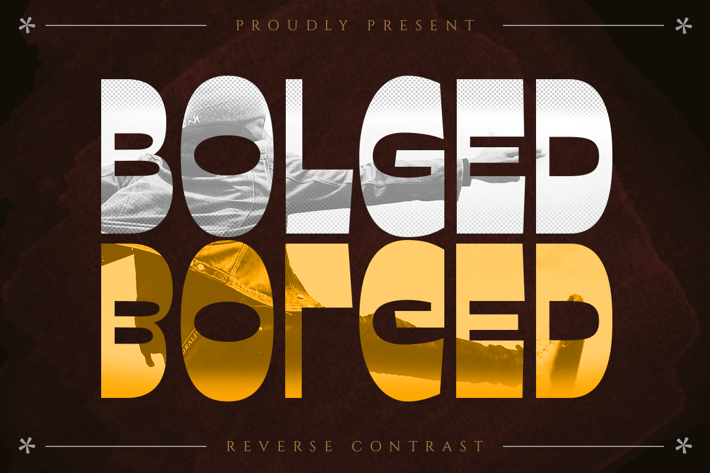
Bolged - Reverse Contrast Font
Introducing Bolged, brand new display font with reverse contrast style, perfect and suitable for branding, headline, logotype, sticker, editorial design, and etc.